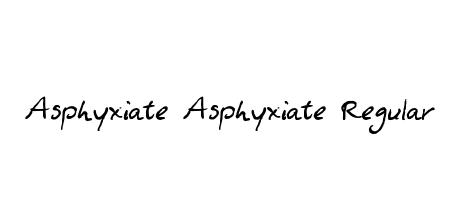
Asphyxiate
By Espen Morten Kvalheim
Asphyxiate Regular boasts a casual, handwritten aesthetic. Its slightly irregular letterforms and varying stroke weights give it a spontaneous, almost playful feel, contrasting with the seriousness of the word "Asphyxiate." The lowercase letters are softly rounded, creating a gentle, informal look. The overall impression is one of approachable yet slightly quirky handwritten text.